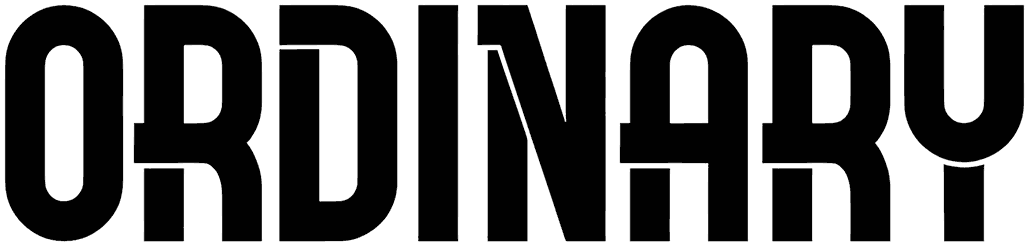
Ordinary Font
Violent as well as squat, Ordinary is a fancy sans serif font with no lowercase characters. It is a terrific option for producing a stylish mood for your audience. Don’t wait any longer; download this techno font and put it to good use in your advertising materials. With easy clicks, unique fonts could be found in our virtual library.